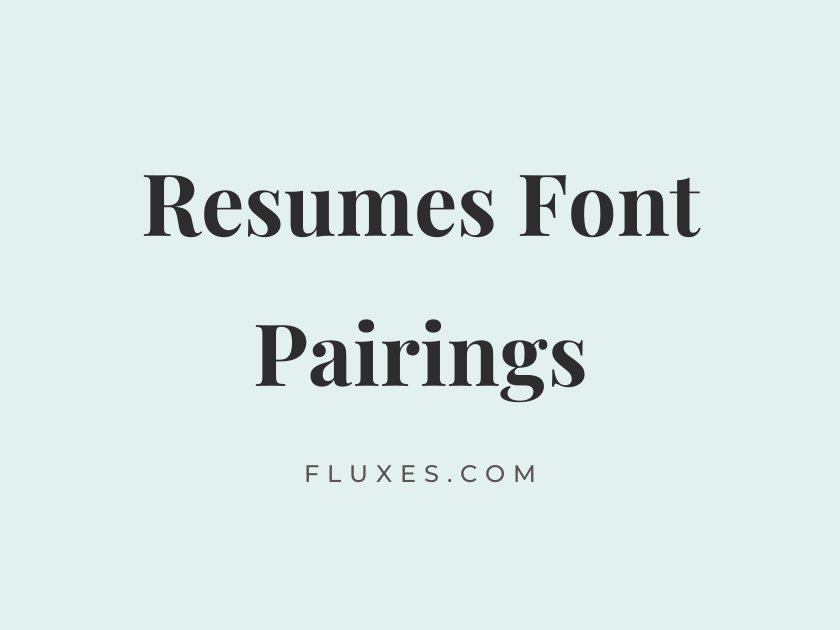
38 Best Font Pairings for Resumes
A resume has about six seconds to make its case, and typography does a lot of that work before a single bullet point is read. The right pairing signals professionalism, organization, and taste without ever calling attention to itself; the wrong one distracts from the content it’s supposed to support. These Google Fonts pairings cover a range of industries and personalities, from conservative finance to creative portfolios, all chosen for legibility at small sizes and a clean division between heading and body roles.
1. Playfair Display + Noto Sans
Senior Financial Analyst
Led quarterly forecasting for a portfolio exceeding $40 million in assets.
Playfair Display’s high-contrast strokes give a resume header real presence, while Noto Sans’s neutral, humanist letterforms keep the experience section easy to scan. This is a dependable choice for executive and finance resumes where polish matters more than personality.
2. Montserrat + Merriweather
Marketing Director, Consumer Brands
Built and scaled a content team that doubled organic traffic in one year.
Montserrat’s geometric confidence makes for a strong, modern name and title line, and Merriweather’s sturdy serif shapes keep dense paragraphs comfortable to read. The combination feels current without drifting into trendy territory.
3. Libre Baskerville + Open Sans
Corporate Attorney, M&A Practice
Advised on transactions totaling over $500 million across three industries.
Libre Baskerville was drawn specifically for on-screen reading, so it holds up well as a resume headline at reduced sizes. Open Sans underneath offers the kind of unobtrusive clarity that recruiters and applicant tracking systems both appreciate.
4. Oswald + Lora
Operations Manager
Streamlined warehouse logistics, cutting fulfillment time by thirty percent.
Oswald’s condensed width lets a title line stay compact and assertive, freeing up vertical space for content. Lora’s moderate contrast and calm curves balance that intensity, making it a good match for operations and logistics resumes.
5. Raleway + PT Serif
Creative Strategist & Brand Lead
Developed brand identities for twelve clients across fashion and hospitality.
Raleway’s elegant, slightly narrow proportions suit a creative title, and PT Serif’s sturdier build keeps the accompanying paragraphs grounded and readable. This pairing works well for design and branding resumes that still need to read as professional documents.
6. Merriweather + Karla
Registered Nurse, ICU
Managed patient care for a twelve-bed critical care unit.
Reversing the usual roles, Merriweather’s warmth makes a trustworthy header for healthcare resumes, while Karla’s low-key, humanist sans handles the detail work without competing for attention. The shared moderate x-height keeps the whole page visually consistent.
7. Poppins + Noto Serif
UX Researcher, Global Team
Conducted usability studies across five markets and three languages.
Poppins reads as friendly and international, an asset for candidates applying to global companies, and Noto Serif was built for exactly that kind of multilingual reliability. Together they suit UX, research, and localization roles.
8. Roboto Slab + Roboto
Software Engineer, Backend Systems
Designed distributed services handling ten million requests per day.
Because Roboto Slab and Roboto share the same underlying skeleton, headings and body text feel like one coherent system rather than two competing typefaces. It is a natural fit for engineering and technical resumes.
9. Crimson Text + Work Sans
PhD Candidate, Molecular Biology
Published four peer-reviewed papers on cellular signaling pathways.
Crimson Text carries an academic, book-like tone that suits curricula vitae for research and teaching positions. Work Sans keeps the supporting text crisp and modern so the page does not feel dated.
10. Bitter + Nunito Sans
Supply Chain Coordinator
Coordinated vendor relationships across a twenty-country supply network.
Bitter’s slab serifs add structural weight to section headers, giving the page clear anchor points. Nunito Sans, soft and rounded, keeps the body copy approachable, a useful balance for operations-heavy resumes.
11. Cormorant Garamond + Lato
Editorial Director, Lifestyle Media
Oversaw editorial strategy for a publication reaching two million readers.
Cormorant Garamond brings an editorial, refined character borrowed from print typography, well suited to publishing and media resumes. Lato’s versatility as a workhorse sans keeps everything below the header efficient and easy to skim.
Match the mood of the fonts to the industry. Slab serifs and geometric sans fonts suit technical and operational roles, while classic serifs and refined display faces suit law, finance, and executive positions.
Check legibility at the smallest size you plan to use, usually around 10 to 11 points for body text, since some display fonts lose clarity well before that point.
Keep font sizes and weights consistent across all section headers, and resist the urge to bold or italicize body text for emphasis; a well-chosen pairing should carry that hierarchy on its own.